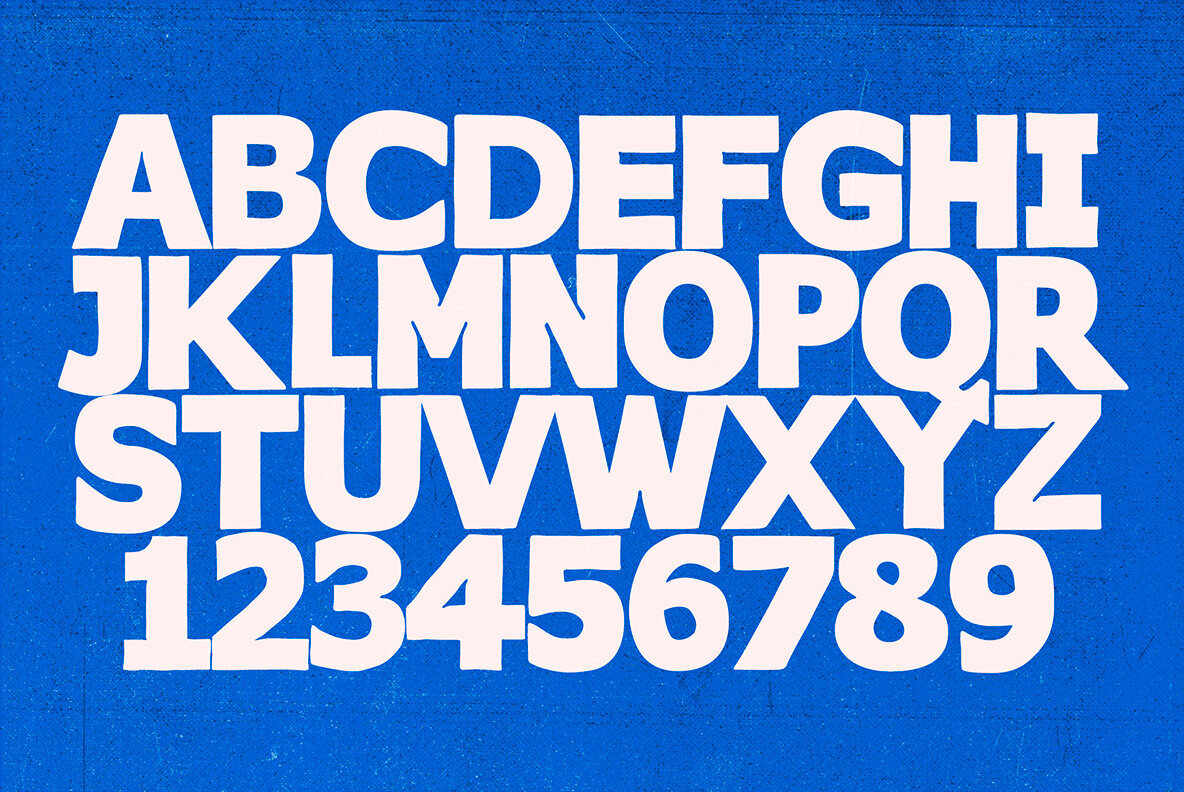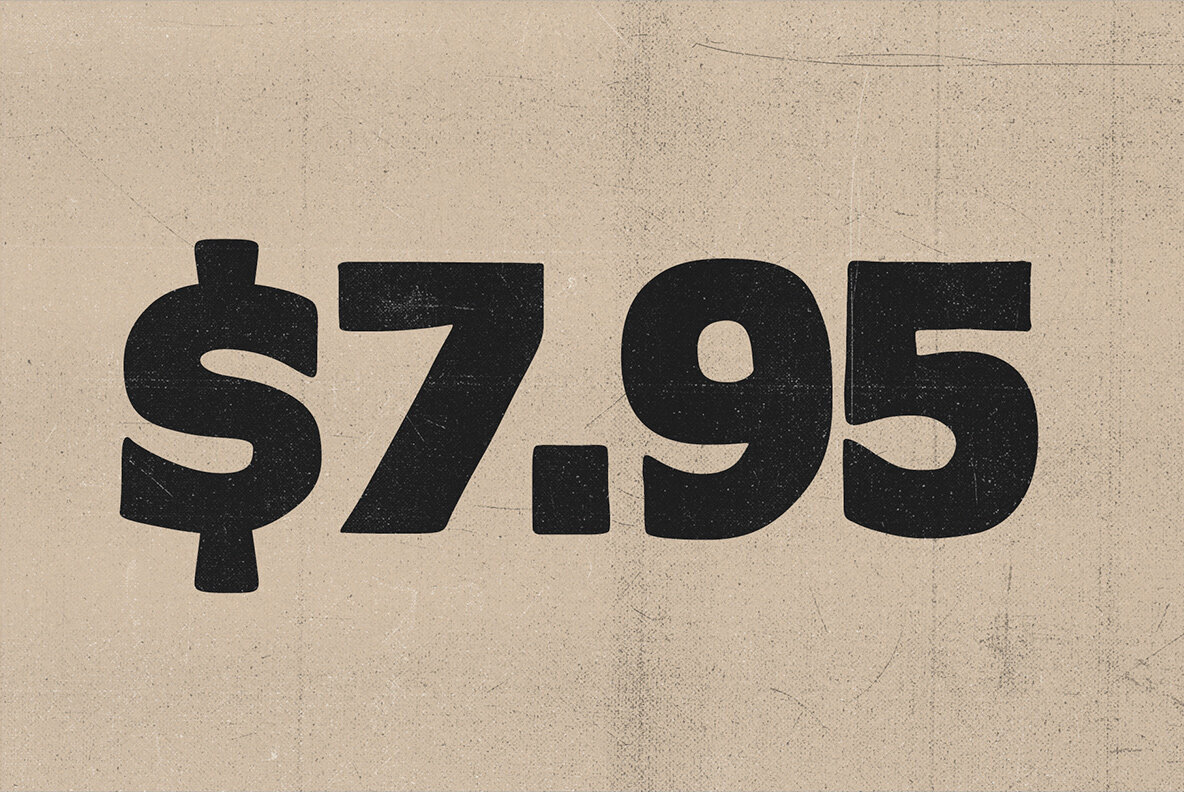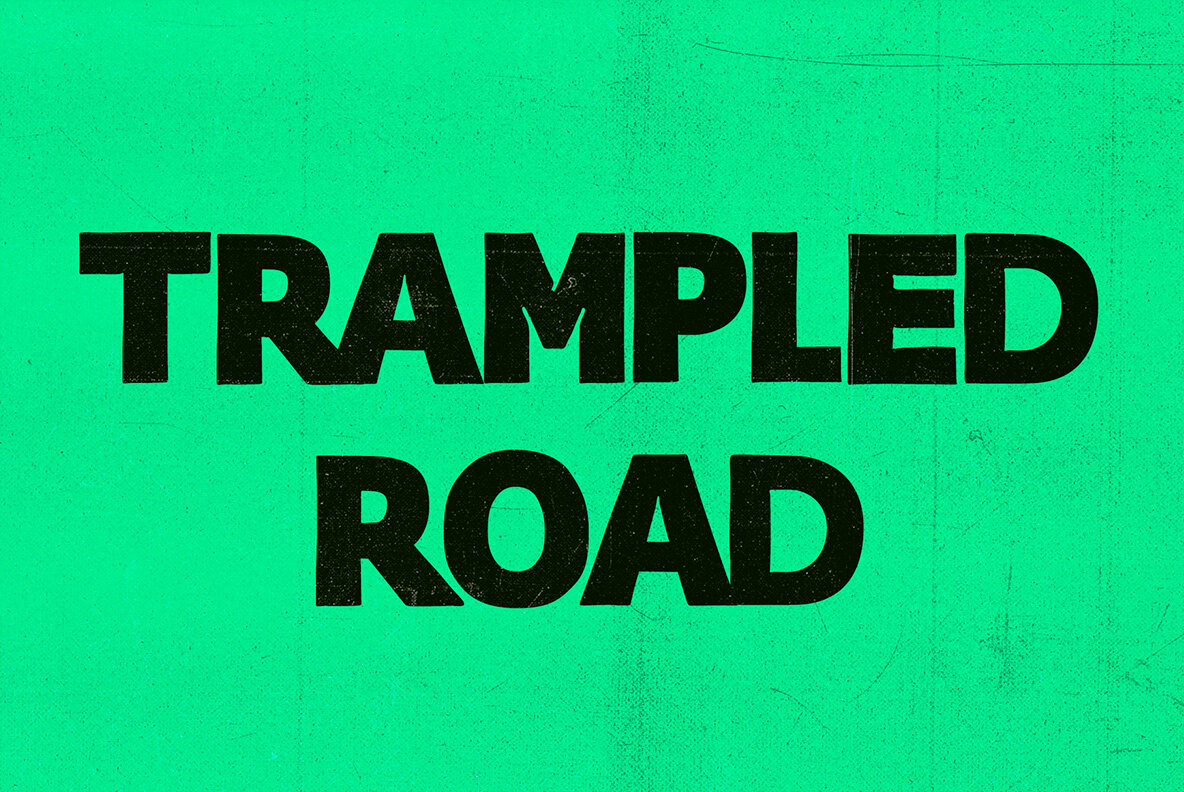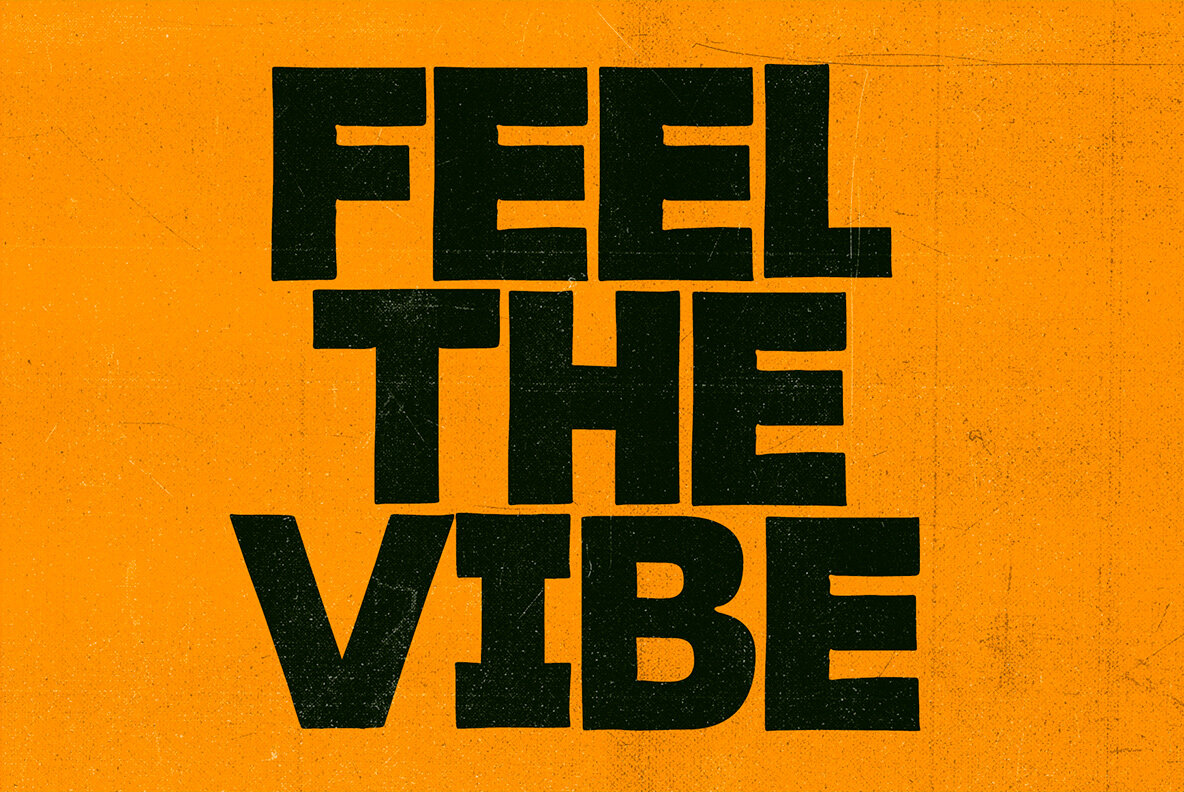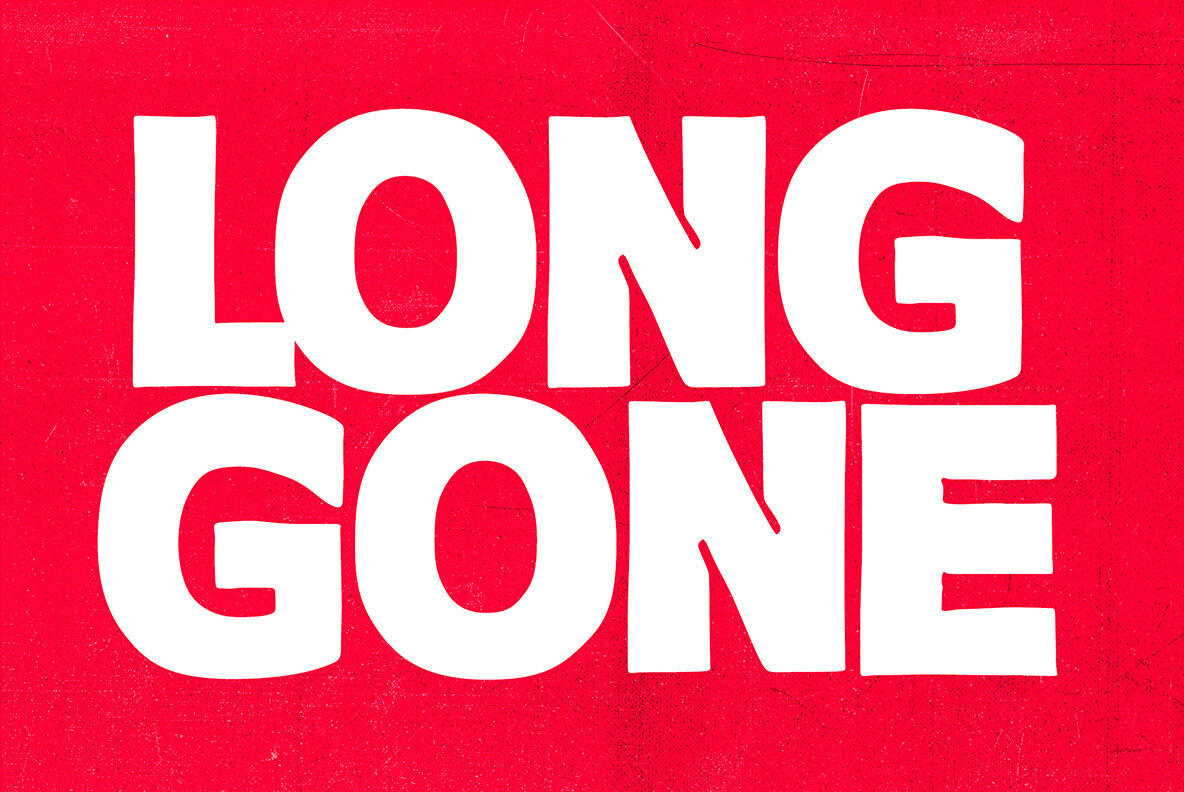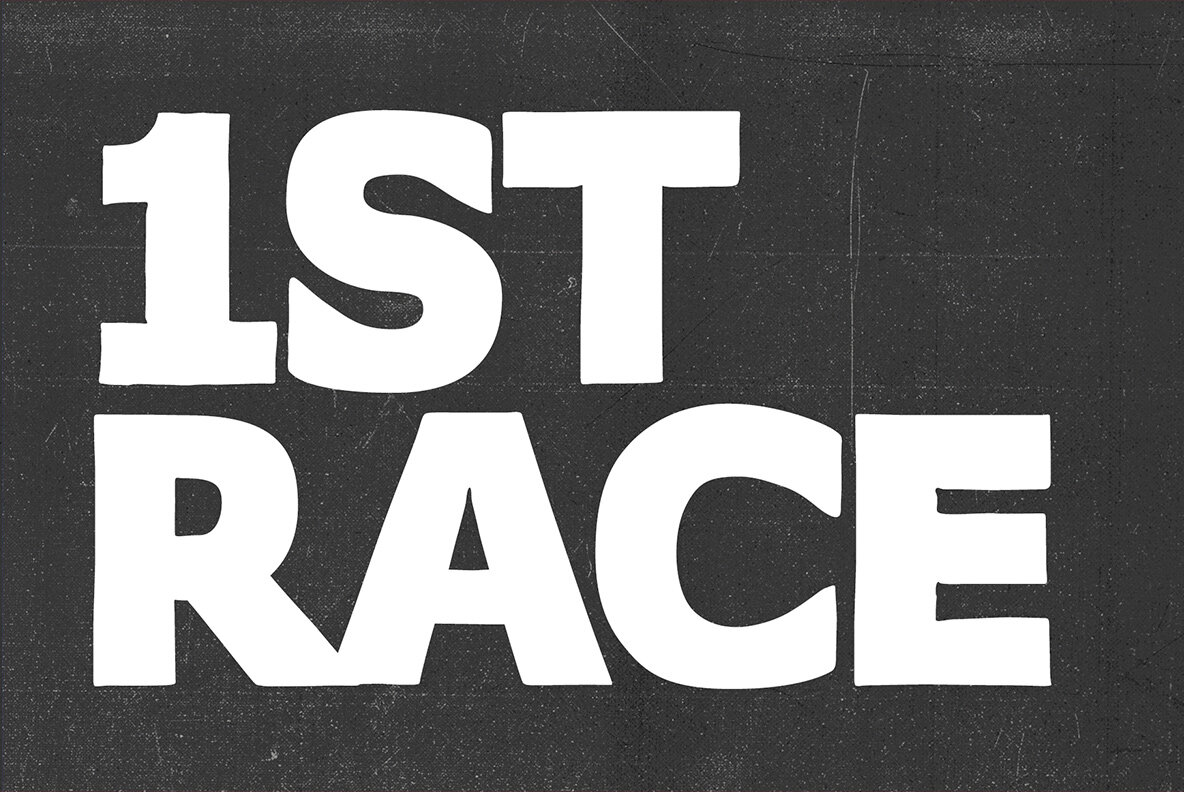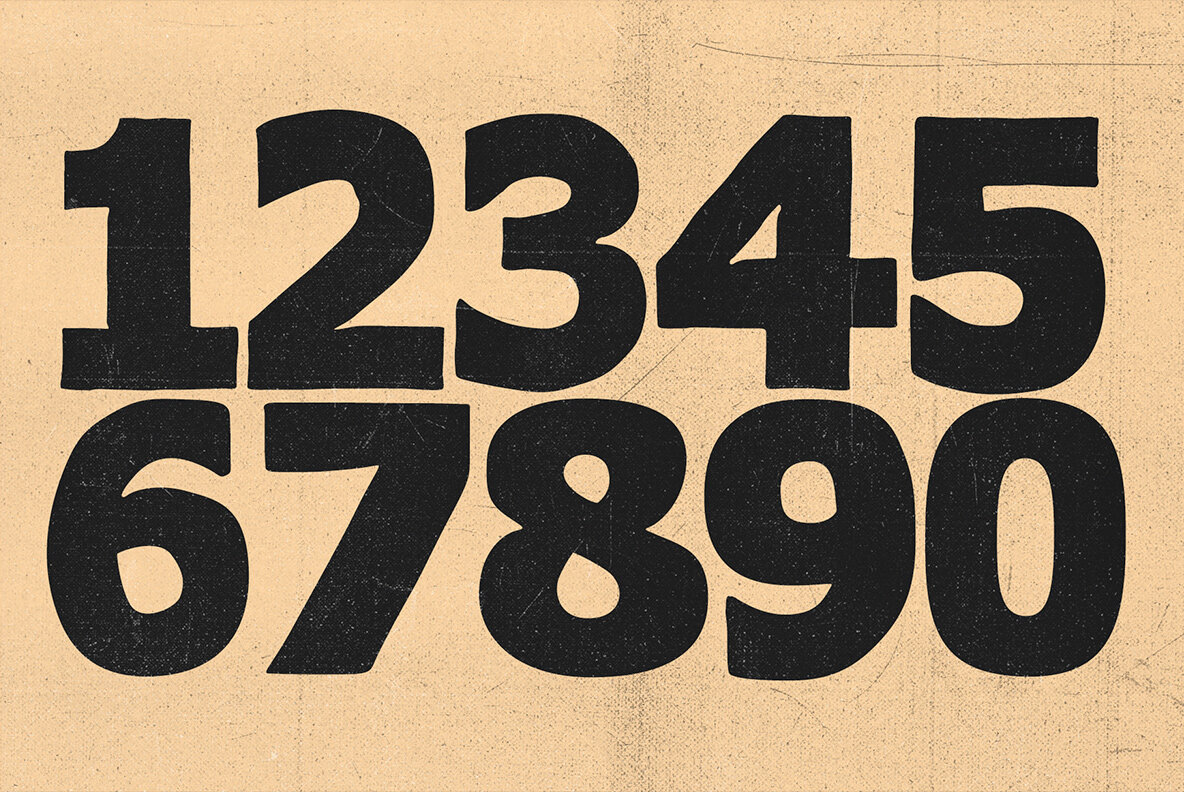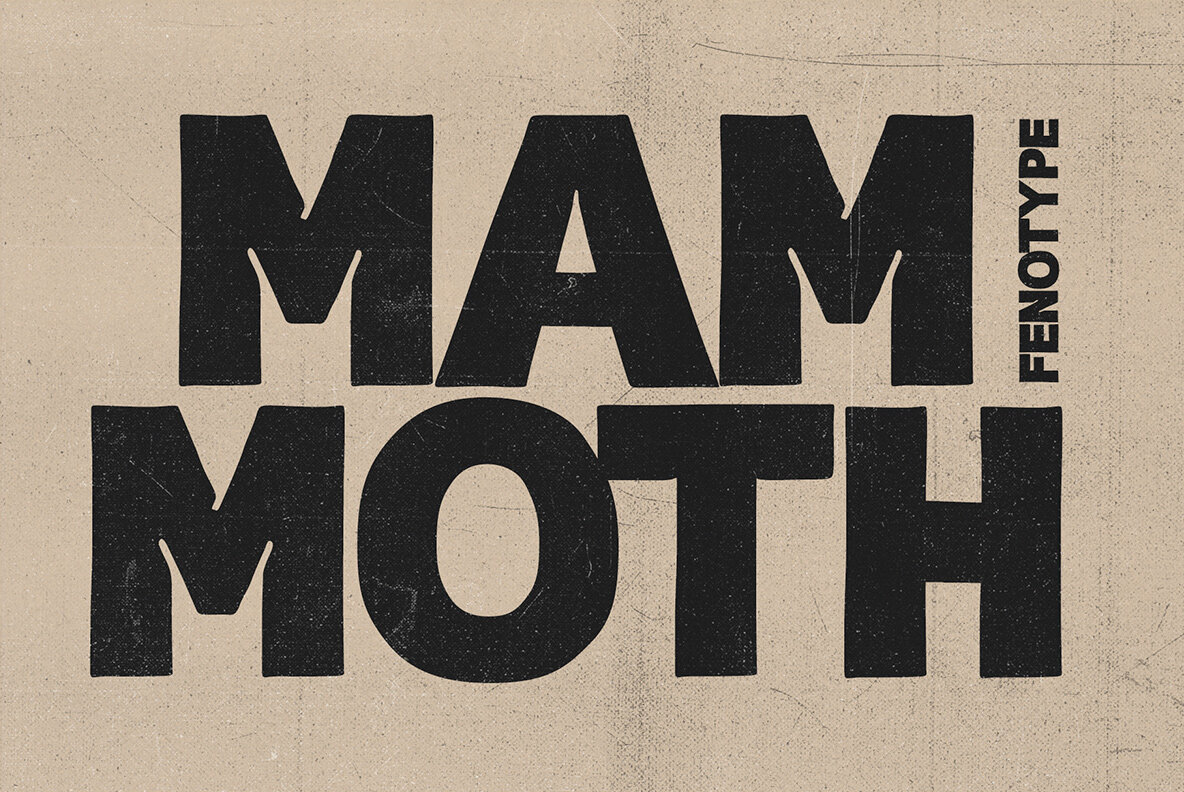
FT Mammoth Font
FT MAMMOTH Heavy
Introducing FT Mammoth, a robust, all-caps font designed for making a strong impact. Easy to use, Mammoth is the ideal choice when you need your words to make a bold statement. Heavy and tough, it's perfect for crafting commanding headers and titles.